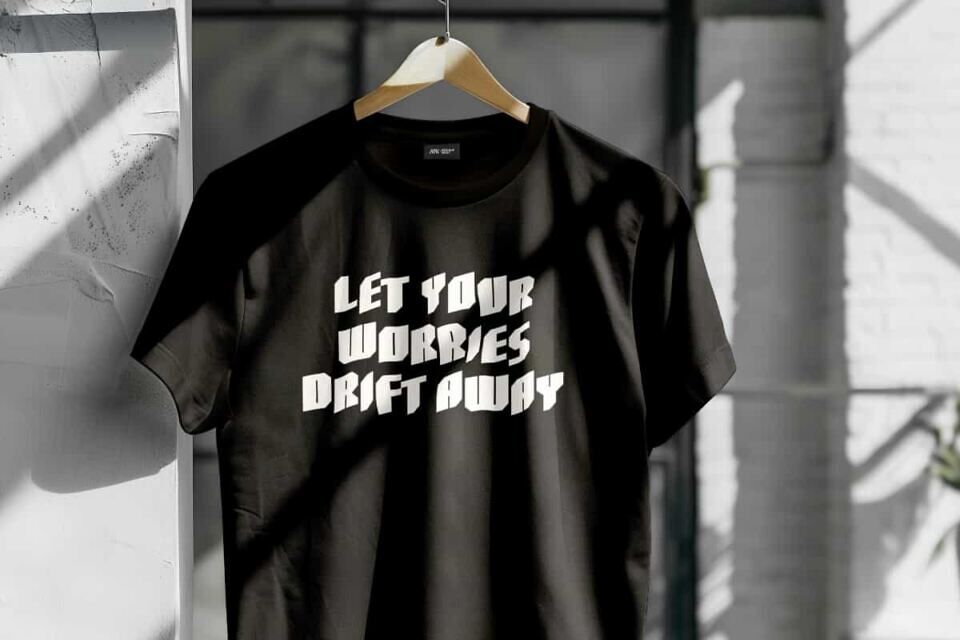
Athlete Draft Font is a modern and bold racing display font, created by RaisProject. This font has a strong character and is made slant so that it looks unique at the same time. It will be good for any designs, such as label, custom design, poster, signage, stationery, product packaging, quotes, brand image, advertisement, invitation, marketing material, website page, and more!
Athlete Draft Font includes a full set of ALL CAPS for Uppercase and Lowercase Letters, Numerals, and large range of Punctuation. This bold font will be suitable for various industries, such as sports, automotive, fashion, game, barber shop, cafe, event or festival, photography, printing, publishing, etc.